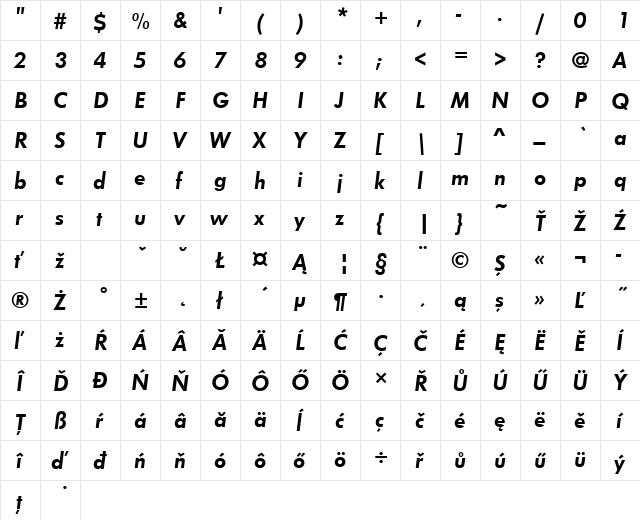
FuturaTEEDem Italic Font Preview
FuturaTEEDem Italic
FuturaTEEDem Italic Font Details
Design Context for FuturaTEEDem Typeface
FuturaTEEDem has a distinctly futuristic character, with geometric precision and clean angles that feel at home in technology, gaming, and sci-fi contexts. Its italic angle brings a sense of urgency and motion to the letterforms.
Pro Tip: Try FuturaTEEDem with generous letter-spacing in UI labels and navigation — the geometric forms benefit from room to breathe.